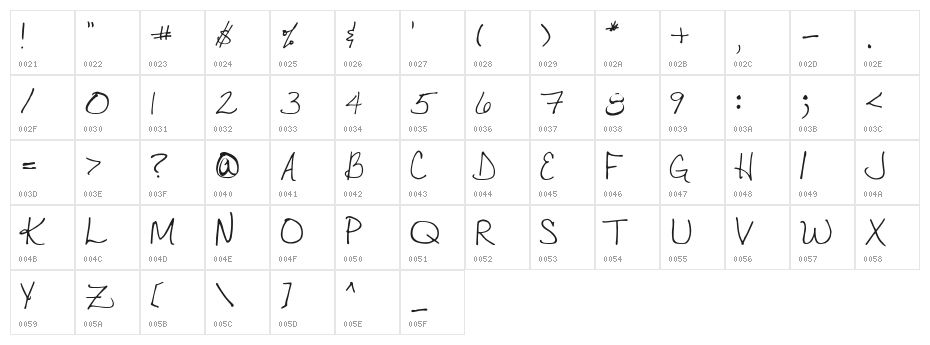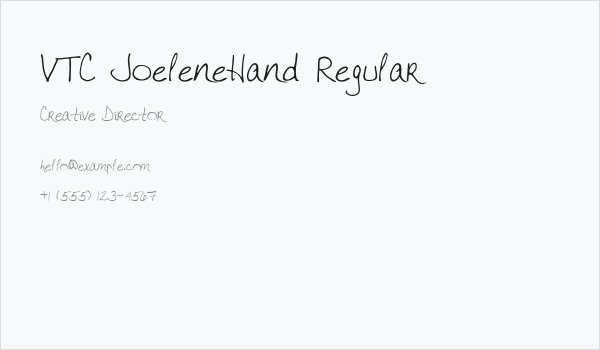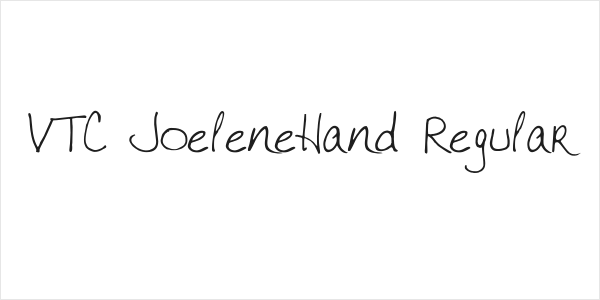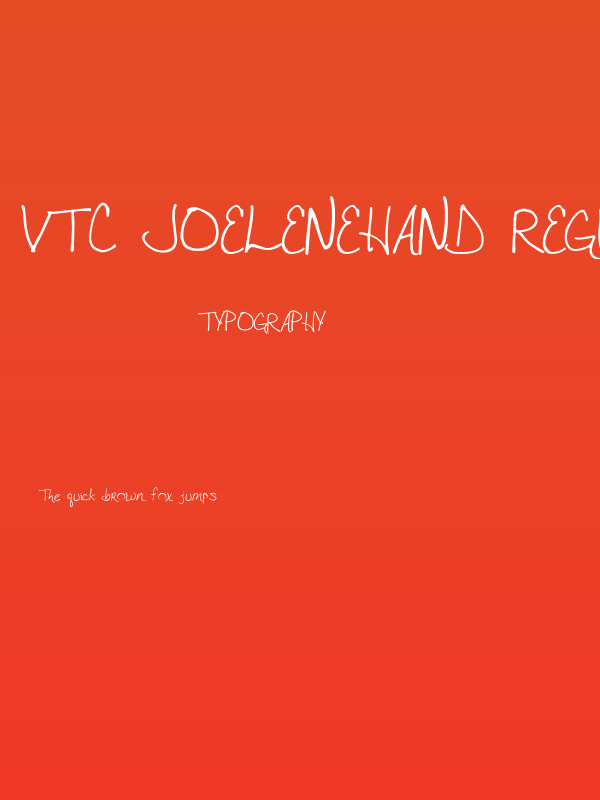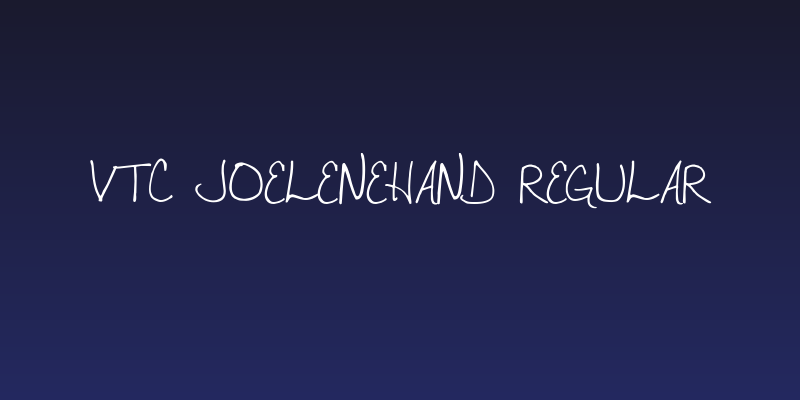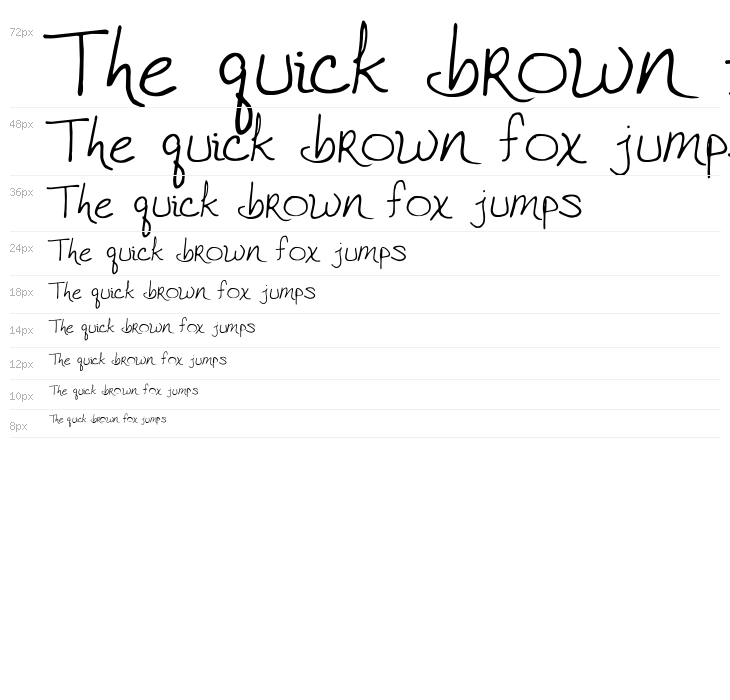
VTC JoeleneHand Regular Font
VTC JoeleneHand Regular Description
This font features a lively and dynamic handwritten style, characterized by its fluid and casual strokes. The letters exhibit a natural flow with varying stroke widths, giving it an authentic and personal touch. The uppercase letters are bold and slightly slanted, while the lowercase letters maintain a consistent rhythm with a playful bounce. The numerals are distinct and easy to read, complementing the overall informal aesthetic. Special characters are creatively designed, enhancing the font's versatility for various applications.
| Use Case | Logos, Headlines, Informal Text |
| Proposed Projects | Ideal for greeting cards, personal branding, social media graphics, and informal invitations. |